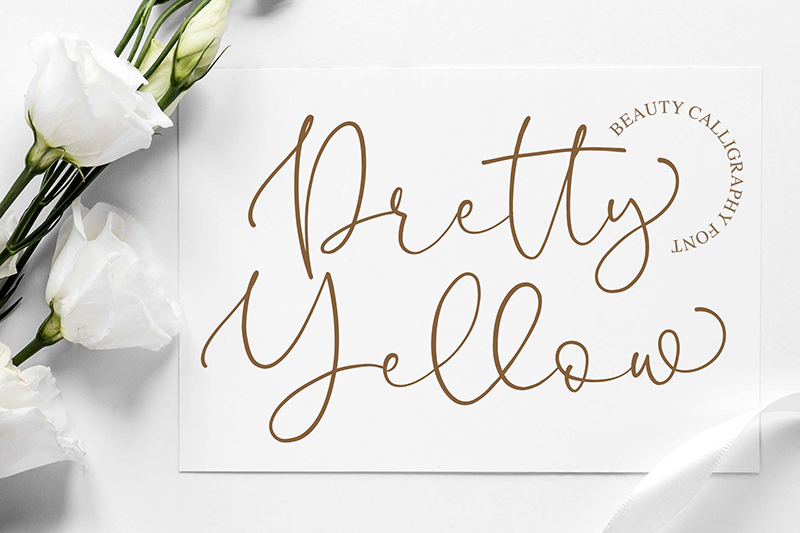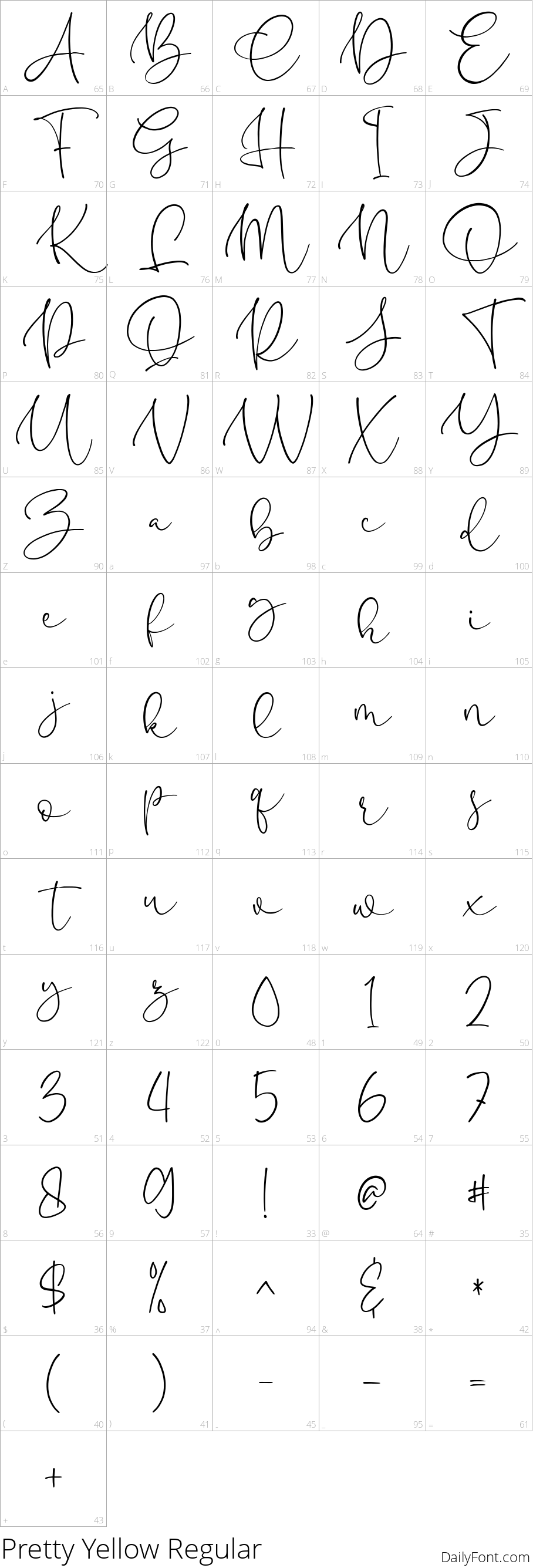
Pretty Yellow
Pretty Yellow is an elegant, relaxed handwritten font designed to elevate your creative projects. With its charming varying baseline and smooth lines, this font captures a unique blend of style and sophistication. Perfect for wedding invitations, beautiful stationery designs, or eye-catching social media posts, Pretty Yellow shines in every application. Its stunning glyphs and attractive alternates provide endless possibilities for customization, making it a must-have font for designers seeking both beauty and versatility. Let Pretty Yellow inspire your next project and add a touch of elegance and warmth to your work, ensuring that it stands out in a crowded digital landscape. Explore the many ways to incorporate this delightful font into your designs and watch your creativity blossom. Whether you're crafting personalized items or professional graphics, Pretty Yellow is the ideal choice for those who appreciate the art of typography.